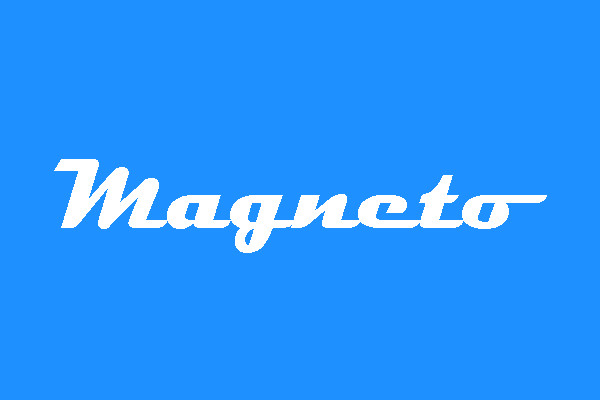
Magneto is a stylish script typeface with a bold, retro-futuristic look. Its fluid letterforms and sharp edges give it a dynamic, high-energy feel, making it perfect for projects that need a sense of motion and excitement. This typeface stands out with its distinctive slanted characters and strong, connected strokes.
Designed by Leslie Cabarga and released by Font Bureau in 1995, Magneto draws inspiration from mid-century American signage and automotive lettering. It has been widely used in branding, advertising, and sports-related designs due to its energetic and sleek appearance.
This typeface is available in different weights and styles, allowing for added versatility in design applications. Some versions may include bold and light variations to provide more flexibility.
Magneto works well for branding, product packaging, sports logos, event posters, and digital media. Its high-impact letterforms make it an excellent choice for projects that need a bold and confident visual presence.